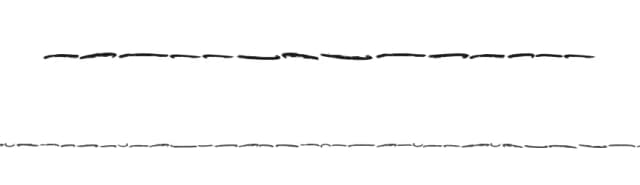
About Classual Font
Classual Specifications
| Font Family | Classual swash |
| Full Name | Classualswash |
| Glyph Count | 31 glyphs |
| PostScript Name | Classualswash |
| Designer | Kong Font |
Classual Font is a script font that shines as a display or heading face. Pair it with a clean sans-serif or serif font for body text β the contrast creates a clear hierarchy while the two styles stay balanced and easy to read.
Classual Font